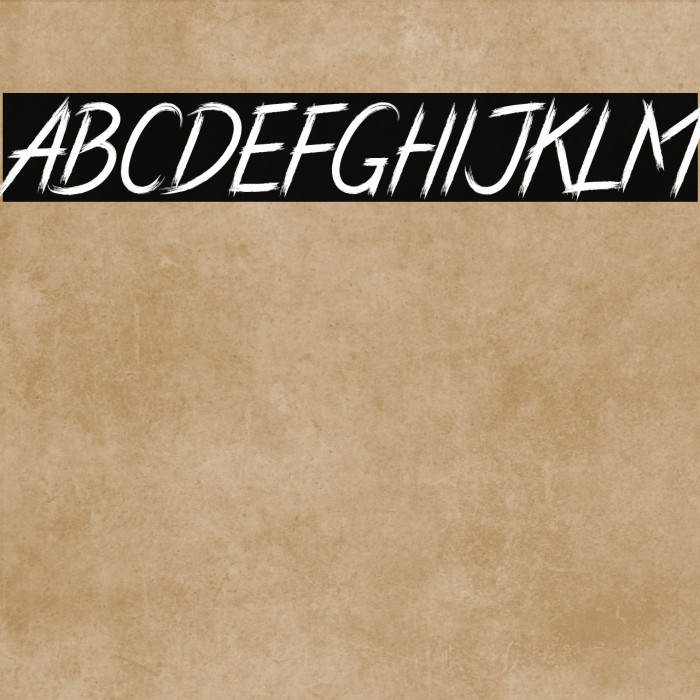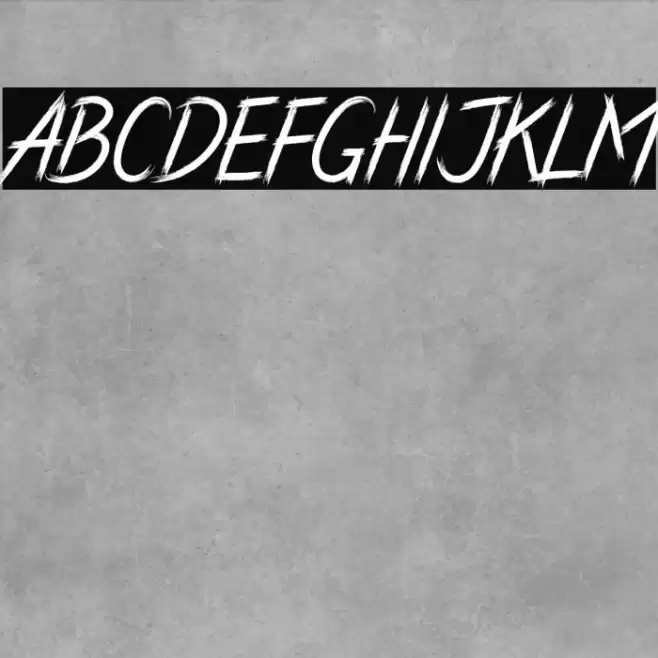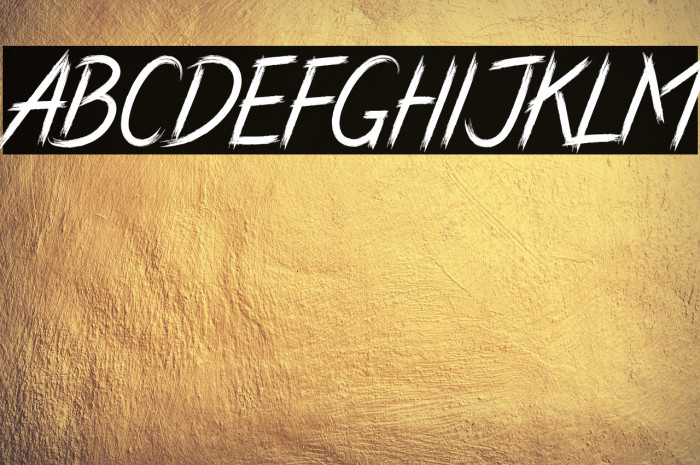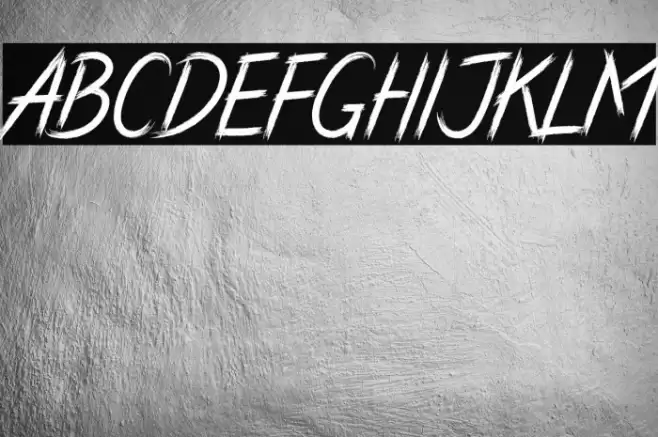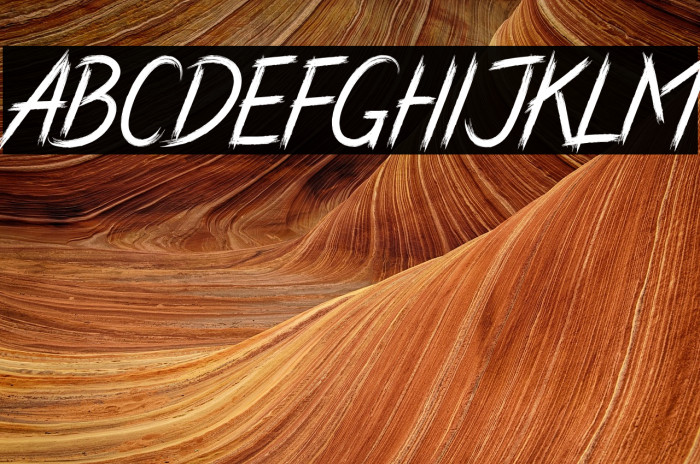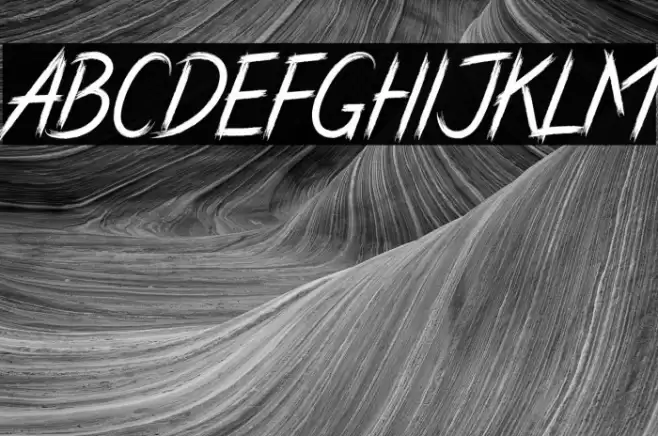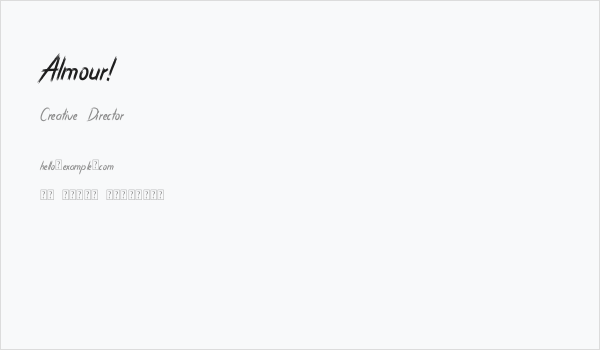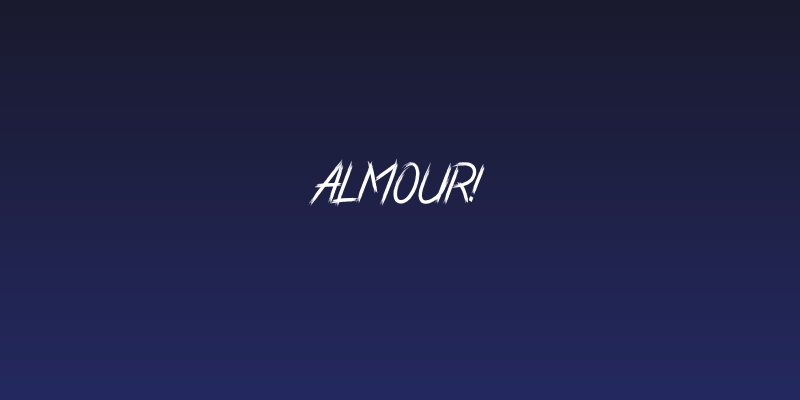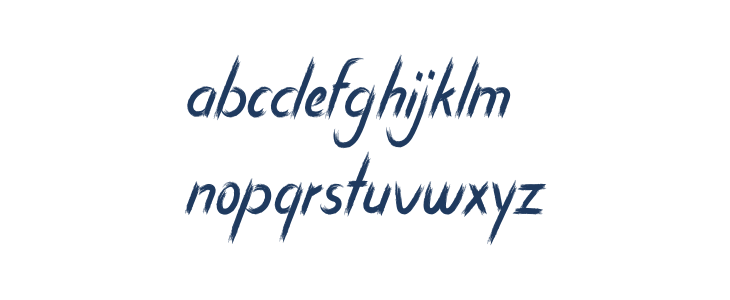
Almour! Font
Almour! Description
This font features a dynamic and energetic style, characterized by sharp, angular strokes that give it a sense of motion and intensity. The uppercase letters are bold and striking, with a brush-like texture that adds a handcrafted feel. The lowercase letters maintain this energetic style, offering a cohesive look across the alphabet. The font's unique appearance makes it stand out, with each character exhibiting a slightly different angle and stroke, enhancing its artistic flair. This font is ideal for projects that require a bold statement and a touch of creativity.
| Proposed Projects | Ideal for posters, album covers, branding, and any project needing a bold, artistic touch. |